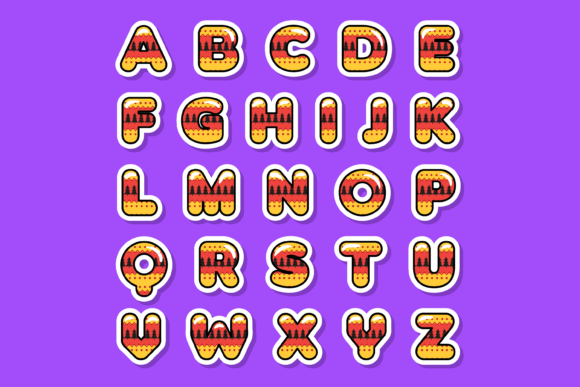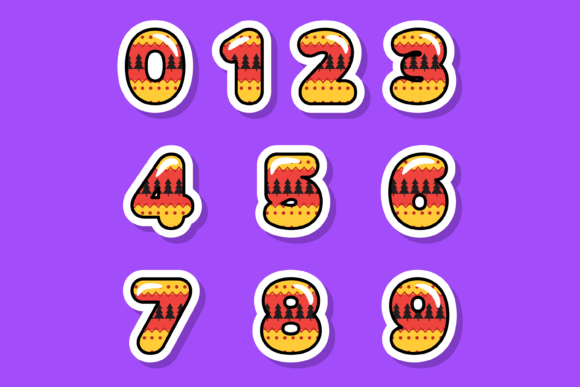
About Xmas Mug Font
Xmas Mug is indeed an incredibly cool color font that embodies the festive spirit of Christmas. Whether you’re working on custom designs, DIY crafts, or any project that needs a touch of holiday magic, this font is a perfect choice.
With its charming design inspired by Christmas mugs, Xmas Mug brings a playful and joyful atmosphere to your creations. The font features vibrant colors and intricate details, reminiscent of the delightful patterns and elements often found on holiday-themed mugs.
The versatility of Xmas Mug allows you to use it in various creative applications. Whether you’re designing Christmas cards, holiday party invitations, festive banners, or even personalized gifts, this font will add a unique and eye-catching element to your work.
The delightful letterforms and decorative elements of Xmas Mug make it a standout choice for capturing the essence of the holiday season. Each letter is carefully crafted to exude the warmth, cheer, and whimsy that Christmas brings, ensuring that your designs stand out and evoke a sense of joy.
Unleash your creativity with Xmas Mug. Incorporate this cool color font into your projects to infuse them with the spirit of Christmas. Whether you’re creating for personal enjoyment or professional purposes, Xmas Mug is an amazing choice that will bring a touch of festive charm to your work.